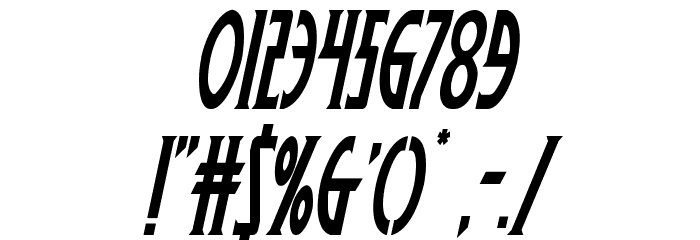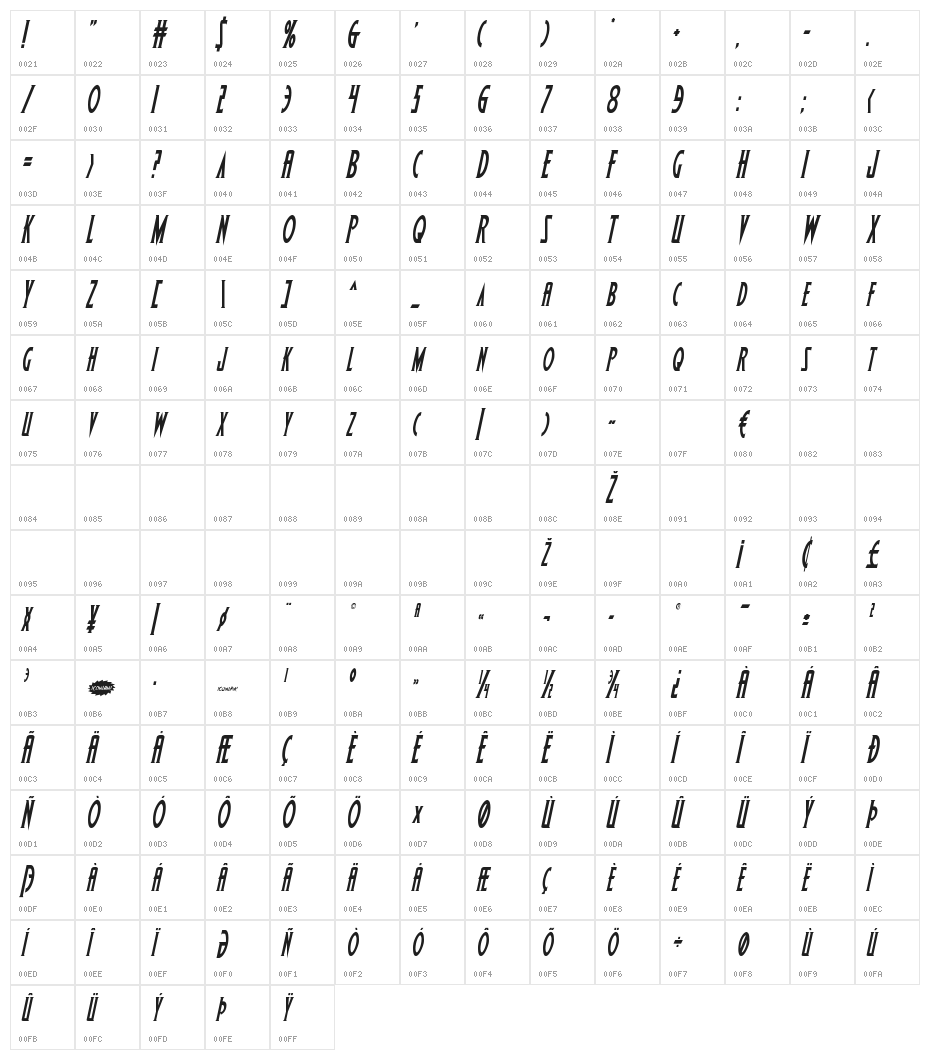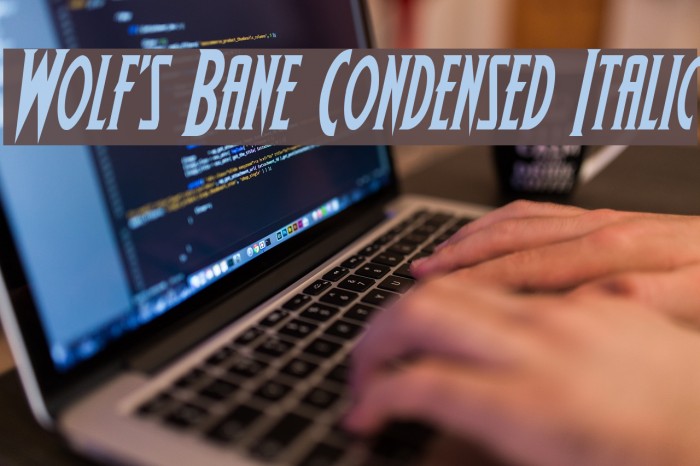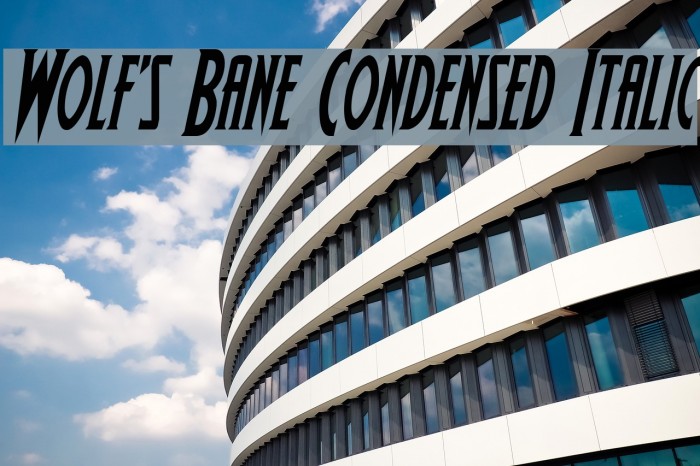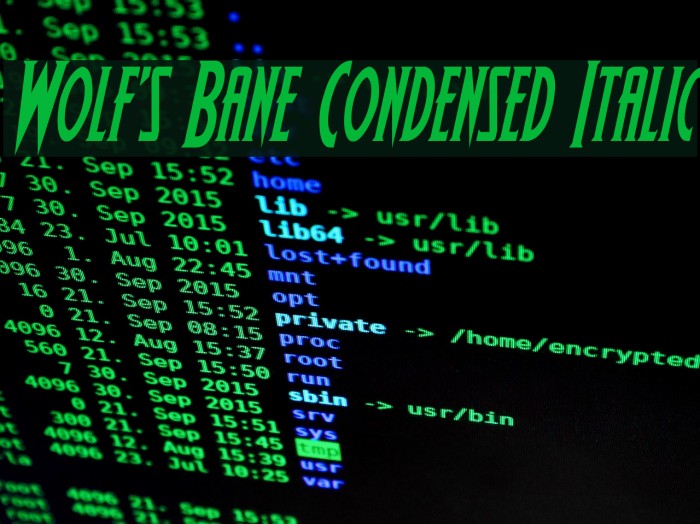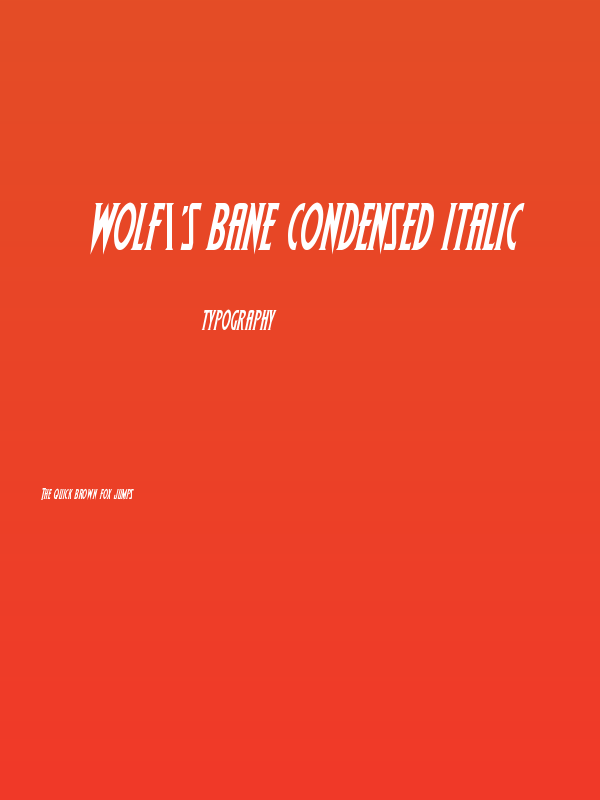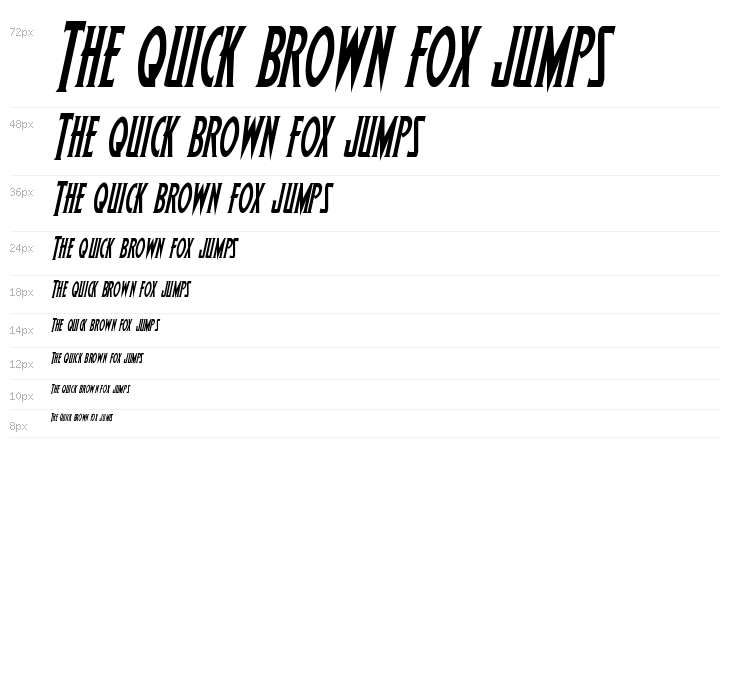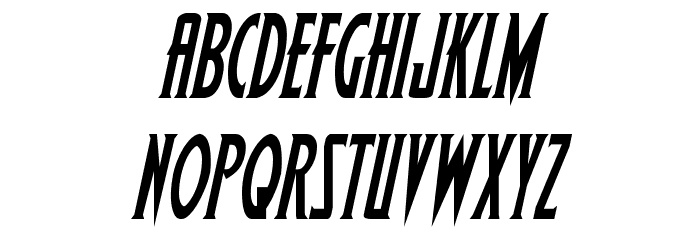
Wolf's Bane Condensed Italic Font
Wolf's Bane Condensed Italic Description
This font features a bold and dynamic design with a strong italic slant, giving it a sense of motion and energy. The condensed width enhances its compact appearance, making it suitable for space-saving applications. The characters have sharp, angular edges and a modern aesthetic, which adds a touch of sophistication and assertiveness. The uppercase and lowercase letters maintain a consistent style, while the numerals and special characters complement the overall design. This font is ideal for projects that require a striking and impactful visual presence.